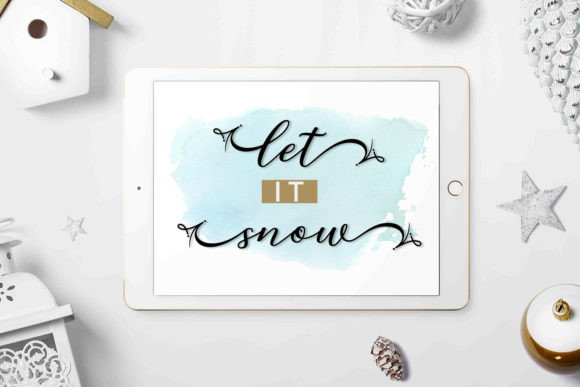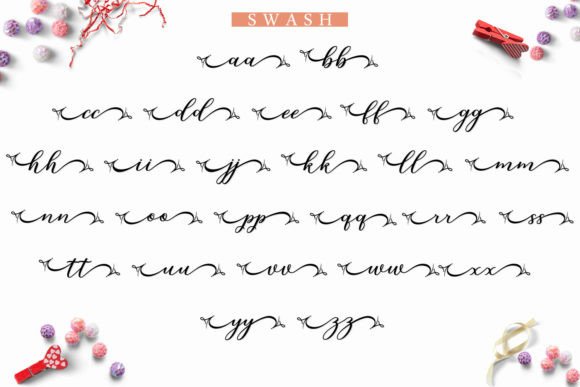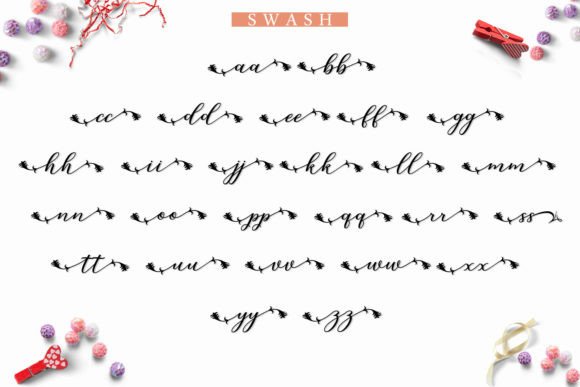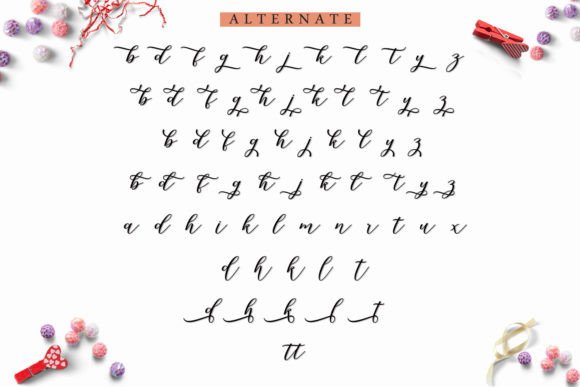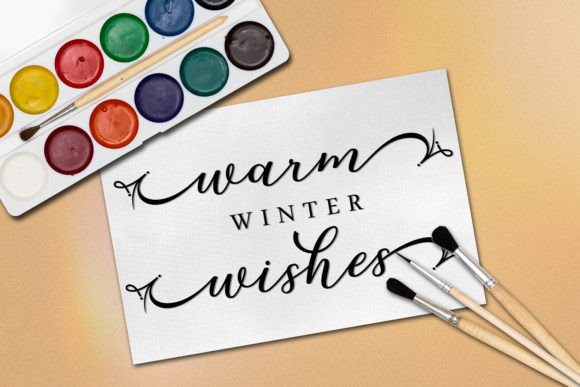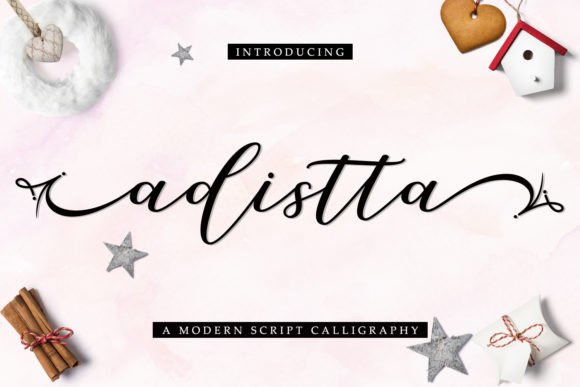
Introducing Adistta Font: The Ultimate Modern Handwritten Script Font
Are you tired of using the same old fonts for your design projects? Do you want to add a touch of elegance and sophistication to your creations? Look no further than Adistta Font, a fresh and modern handwritten script font that’s taking the design world by storm.
What Makes Adistta Font So Special?
Adistta Font is a beautifully crafted font that combines the best of traditional calligraphy with modern sensibilities. Its classy, elegant feel makes it perfect for a wide range of design projects, from wedding invitations and branding materials to packaging and digital media.
One of the standout features of Adistta Font is its PUA (Private Use Area) encoding. This means that you can access all the glyphs and ligatures with ease, giving you complete creative control over your typography. Whether you’re a professional designer or a crafty DIY enthusiast, Adistta Font is incredibly easy to use and allows you to produce stunning results.
The Benefits of Using Adistta Font
So why should you choose Adistta Font for your next design project? Here are just a few of the benefits you can expect:
- Unique and eye-catching: Adistta Font is a true showstopper. Its fresh, modern take on traditional calligraphy is sure to grab attention and leave a lasting impression.
- Versatile: Whether you’re designing a logo, creating a social media graphic, or crafting a beautiful wedding invitation, Adistta Font is the perfect choice.
- Elegant and sophisticated: Adistta Font exudes class and sophistication, making it perfect for high-end branding and luxury design projects.
- Easy to use: With its PUA encoding, Adistta Font is incredibly easy to use, even for those with limited design experience.
Who Can Benefit from Adistta Font?
Adistta Font is perfect for a wide range of designers and crafters, including:
- Graphic designers: Whether you’re working on a branding project, creating social media graphics, or designing a website, Adistta Font is a great addition to your font library.
- Wedding planners and stationery designers: Adistta Font is perfect for creating beautiful wedding invitations, save-the-dates, and other stationery.
- Crafters and DIY enthusiasts: If you love crafting and making things, Adistta Font is a great choice for your handmade projects, from card making to scrapbooking.
- Digital artists and illustrators: Adistta Font can add a touch of elegance and sophistication to your digital artwork.
Tips for Using Adistta Font
Here are a few tips for getting the most out of Adistta Font:
- Experiment with different sizes and colors: Adistta Font looks great in a variety of sizes and colors, so don’t be afraid to experiment and find the perfect combination for your design.
- Pair it with other fonts: Adistta Font works beautifully with other fonts, so try pairing it with a bold sans-serif or a elegant serif font.
- Use it for headlines and titles: Adistta Font is perfect for headlines and titles, where its elegant, cursive feel can really shine.
In conclusion, Adistta Font is a fresh and modern handwritten script font that’s perfect for designers and crafters who want to add a touch of elegance and sophistication to their projects. With its PUA encoding, unique and eye-catching design, and versatility, Adistta Font is a great addition to any font library. So why not fall in love with Adistta Font and bring your projects to the highest levels?